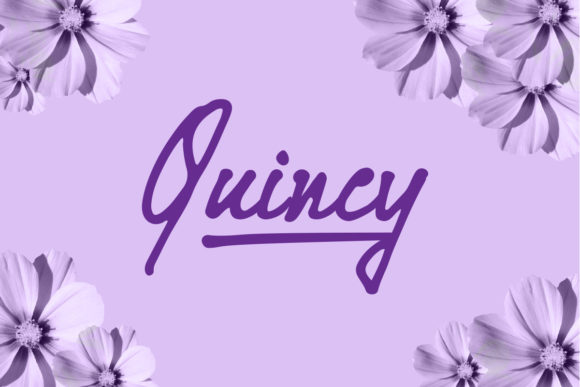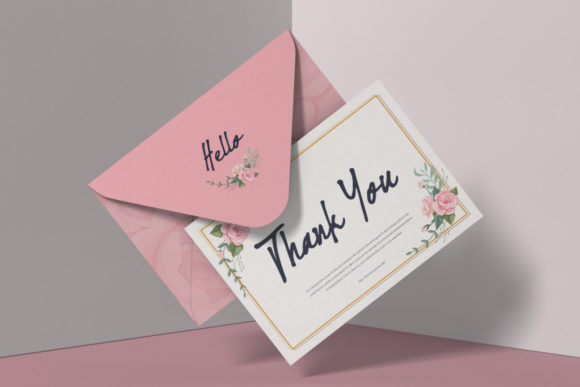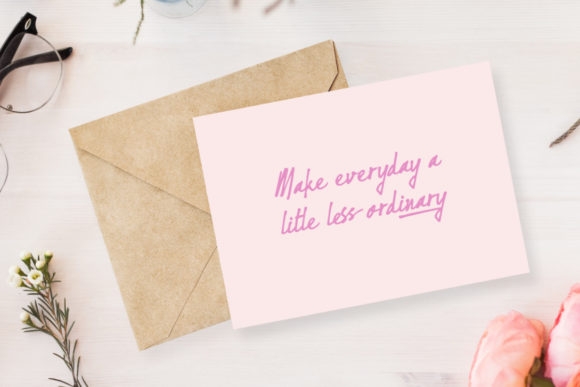
About Quincy Font
Quincy is a lovely and delicate script font that exudes elegance and class. This font was particularly crafted for those who need a beautiful and refreshing look to their designs.